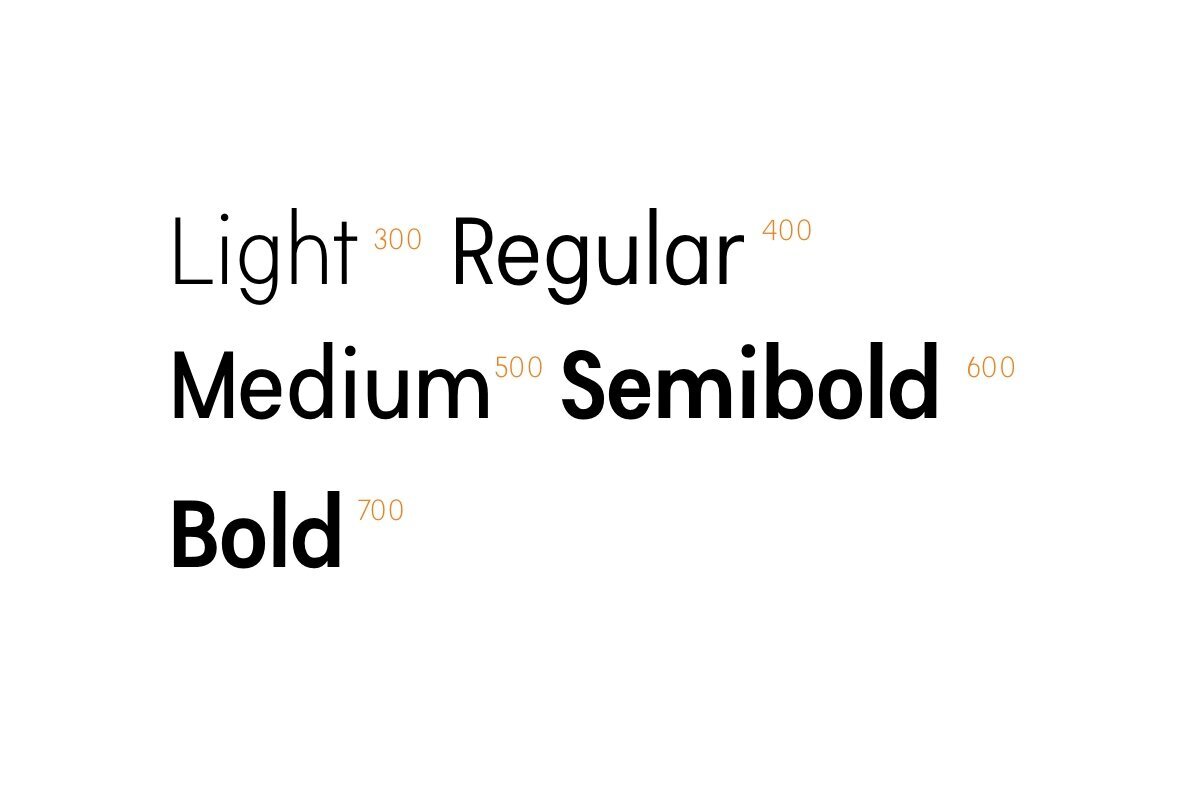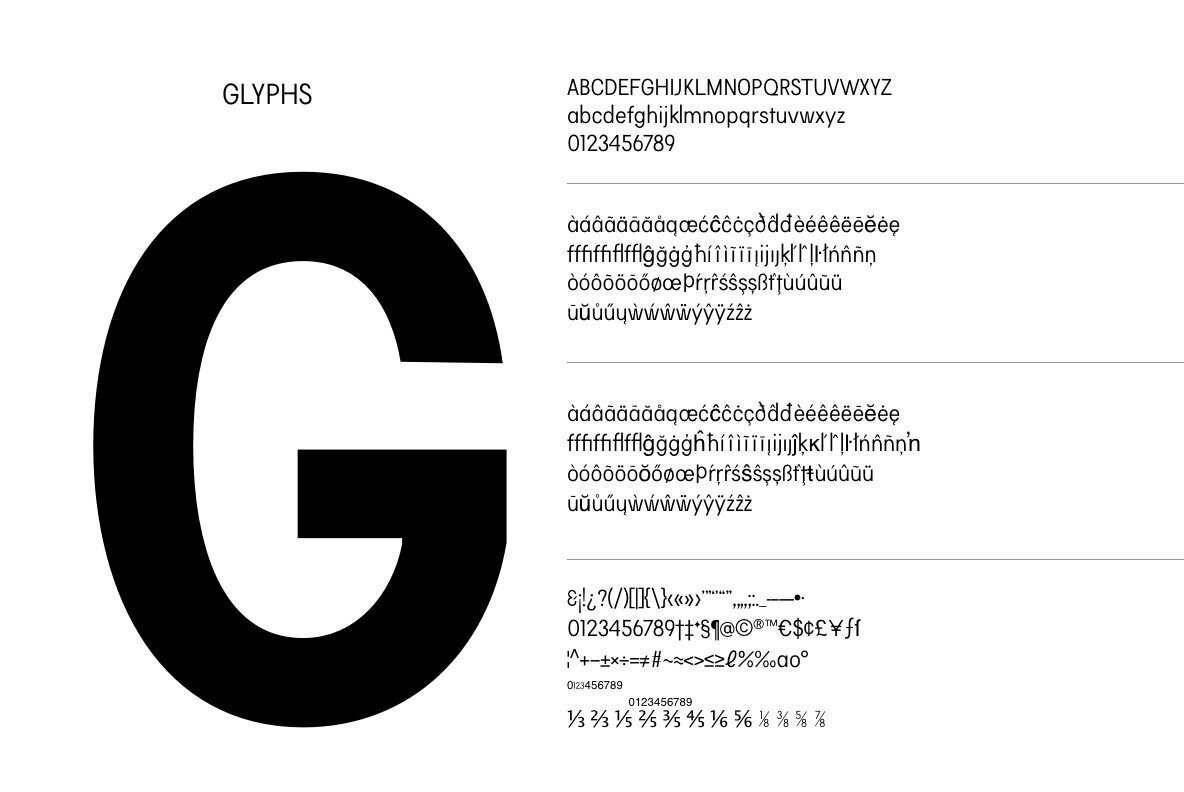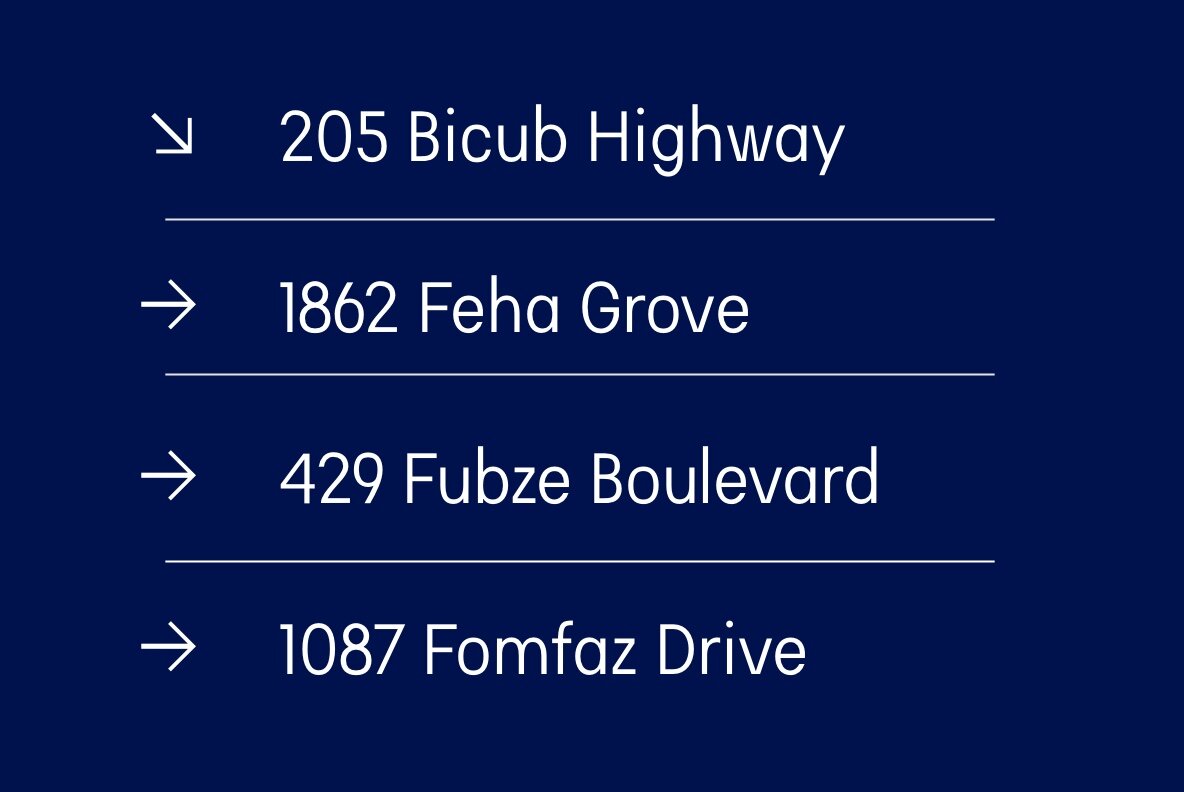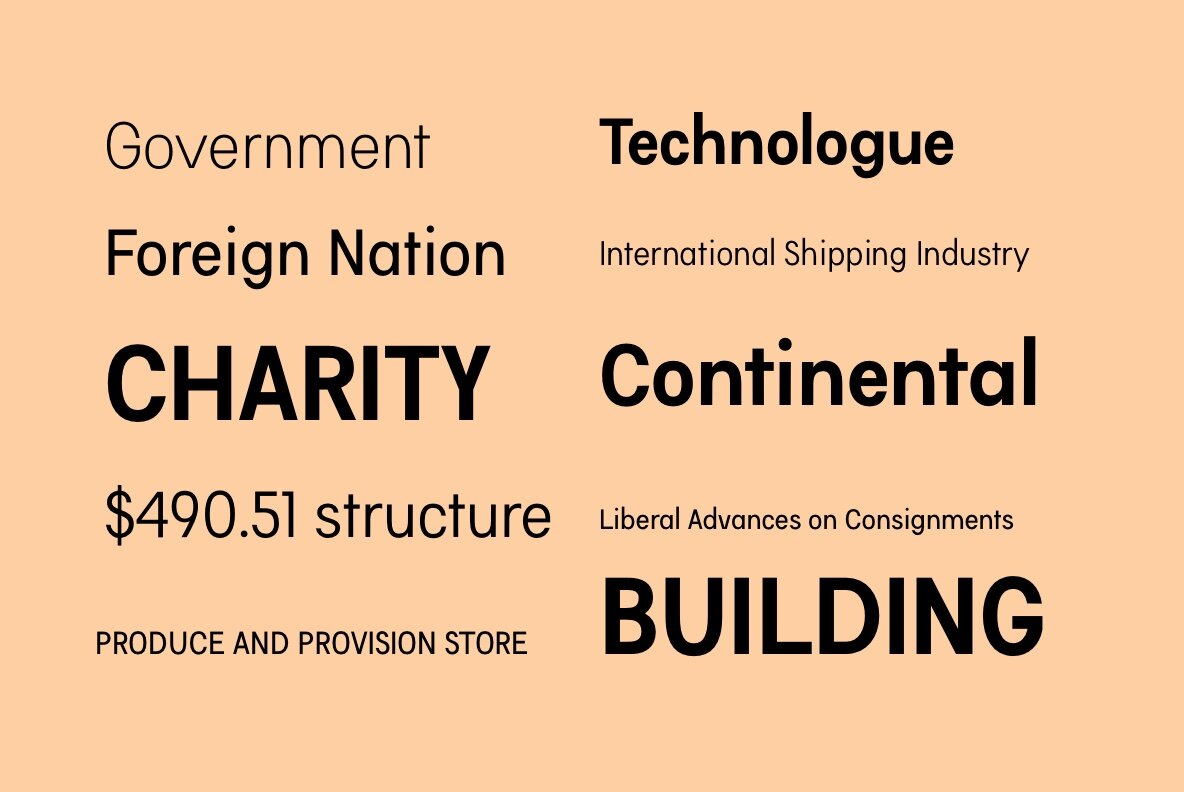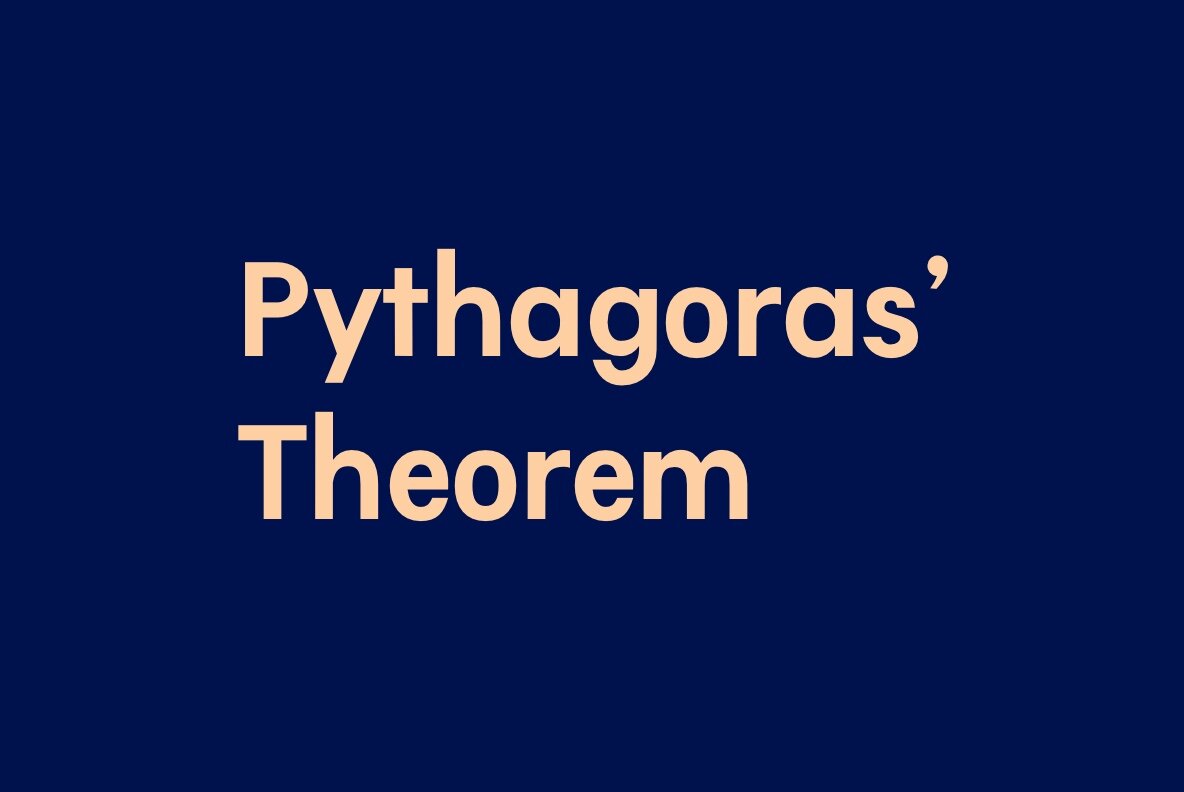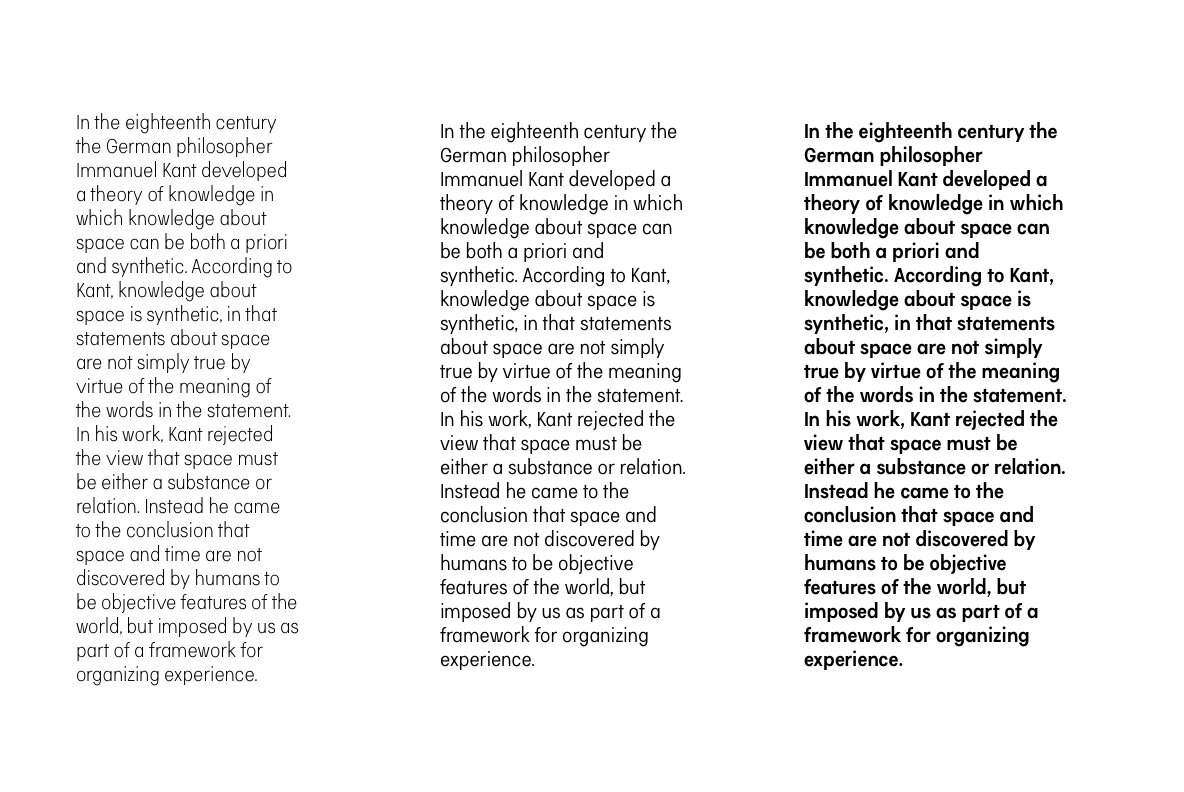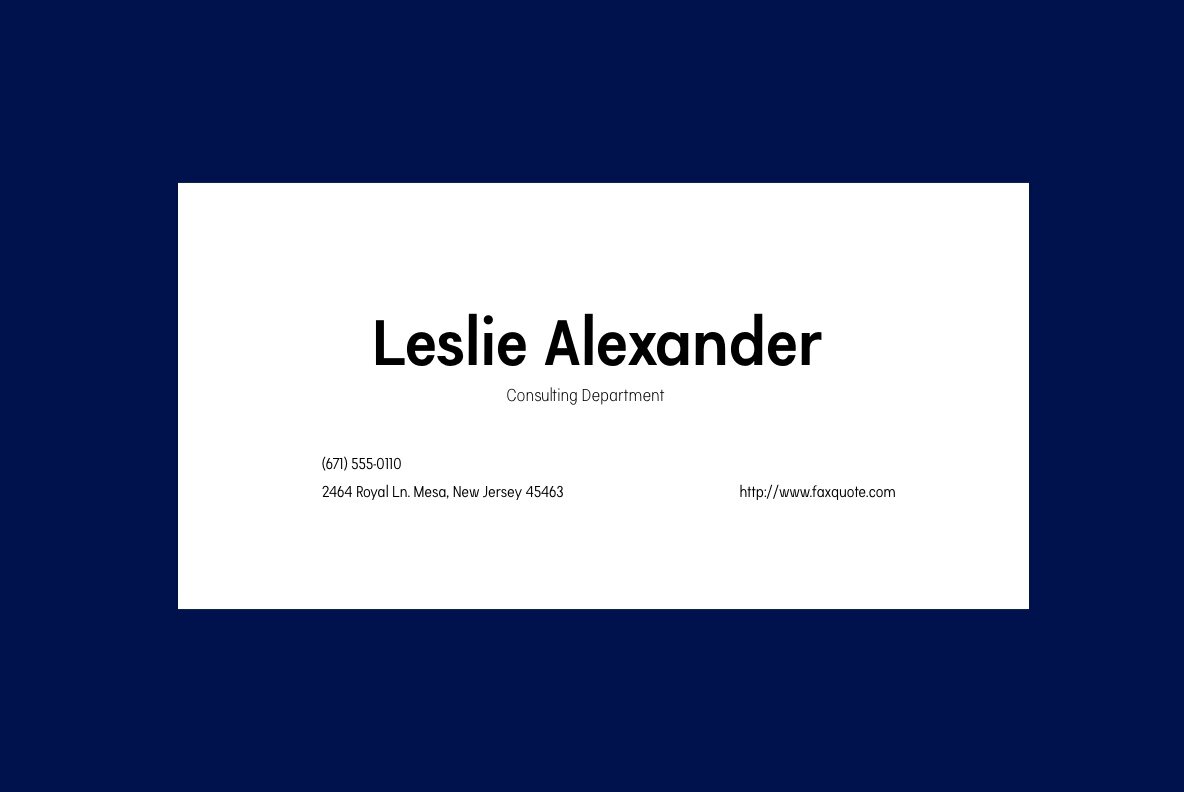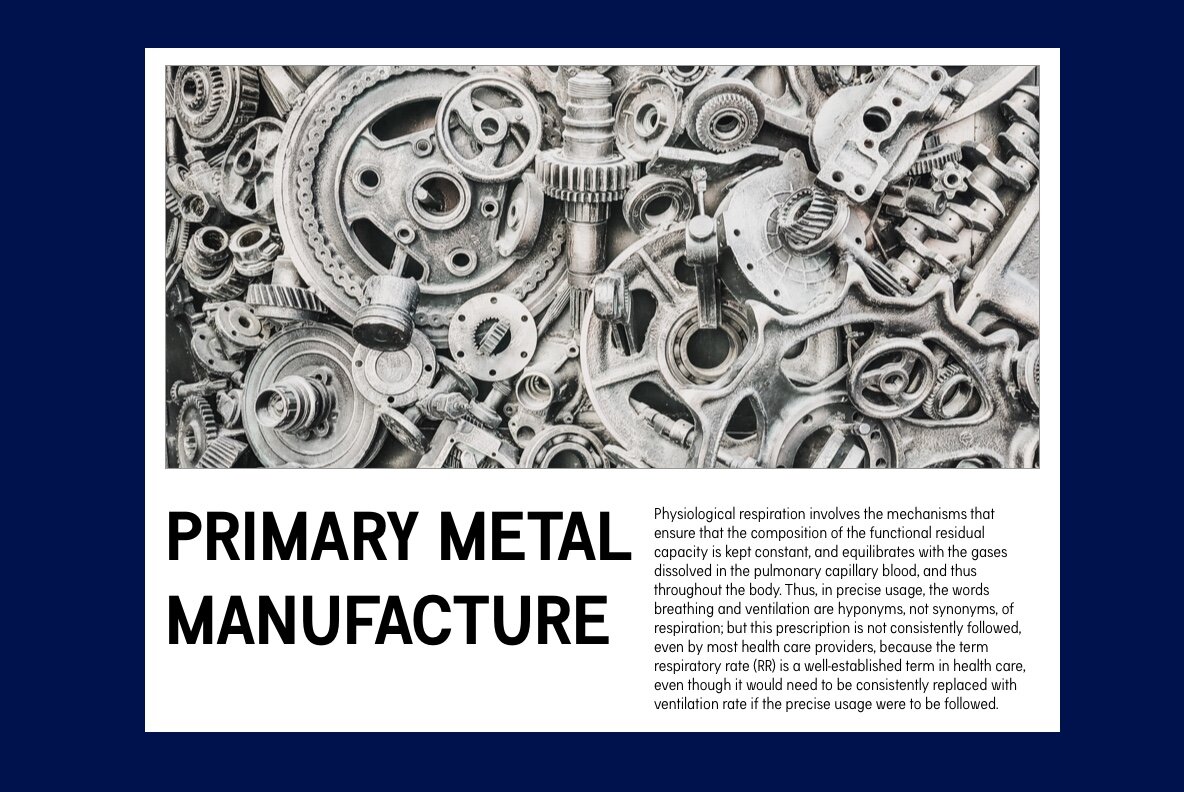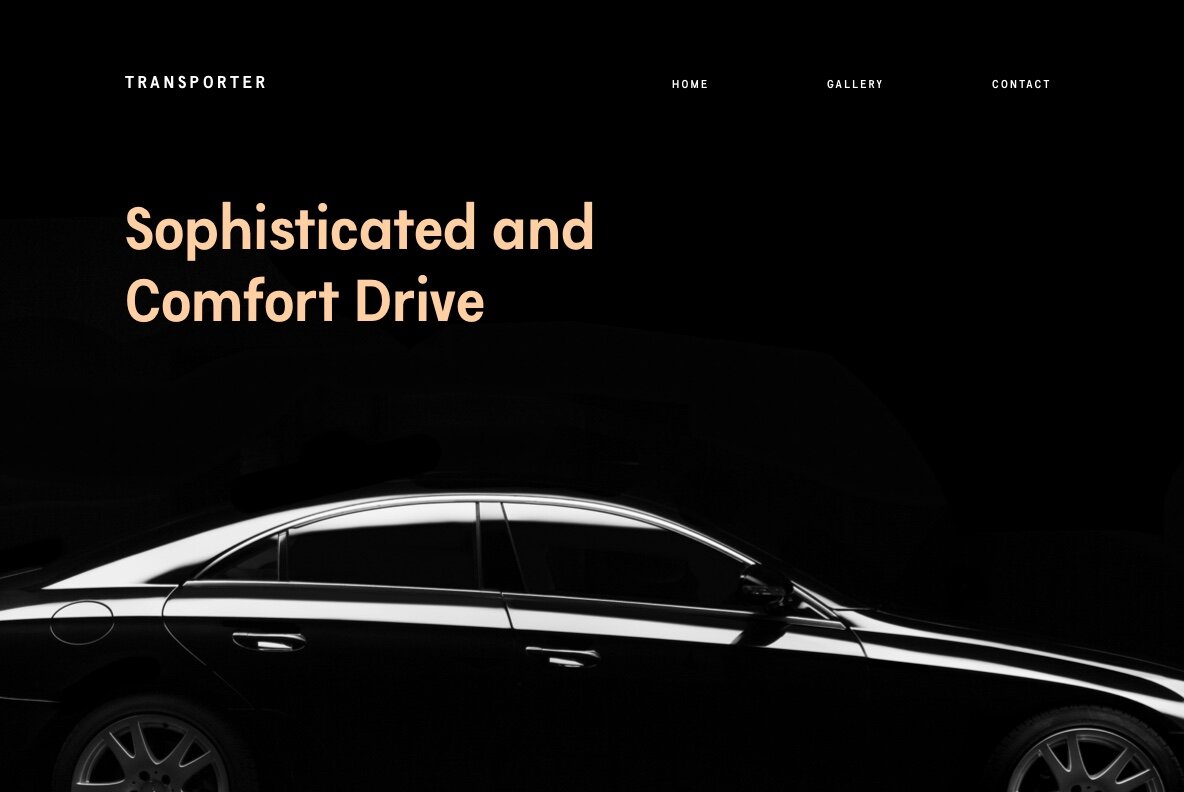
Mafiled Font
Designed by Chromatype Studio, Mafield is a neutral sans-serif font family crafted to offer versatility for both paragraph text and display settings. Its understated elegance lends itself to diverse applications, making it an ideal choice for designers seeking a clear and unobtrusive typeface.Mafield: Versatile Neutral Sans Typeface